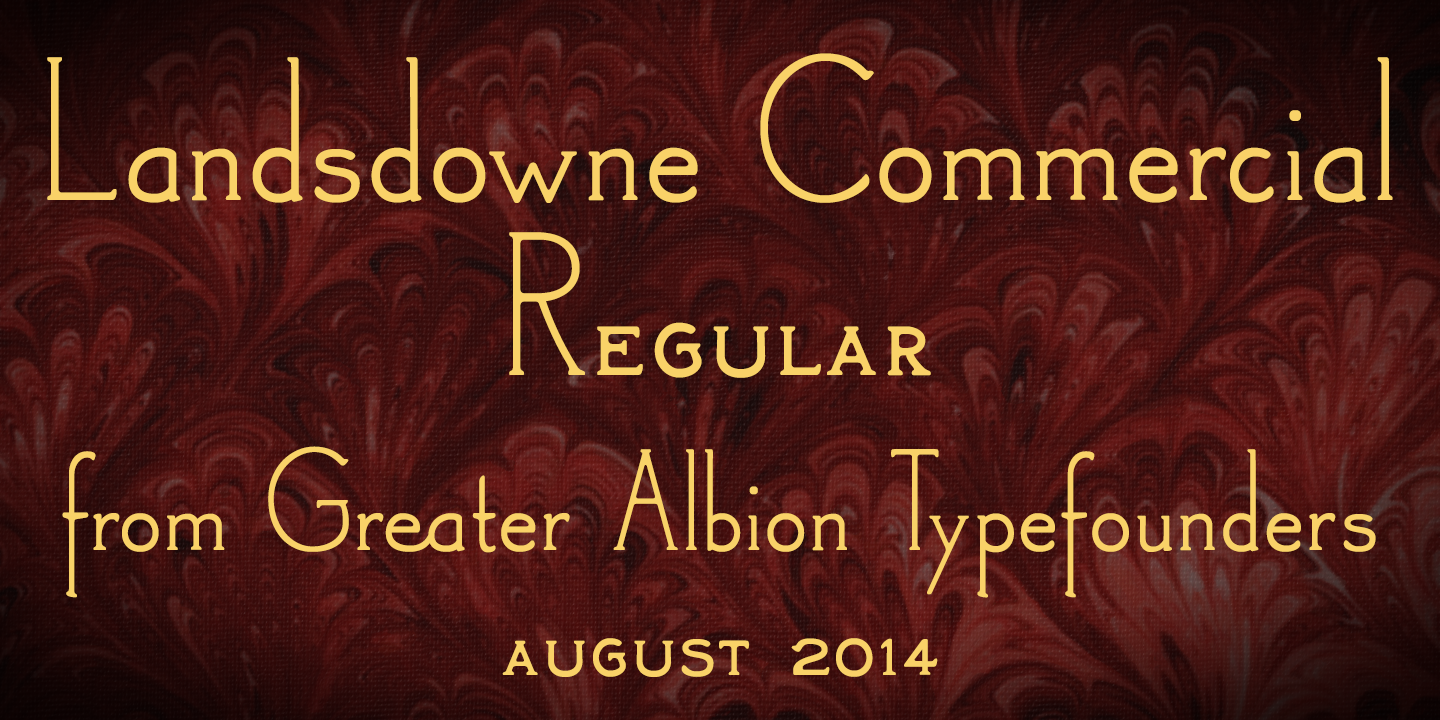
Landsdowne Commercial Font Free Download provides designers with sophisticated typography that combines business elegance with contemporary functionality for professional design applications. This commercial font requires purchase for business use, but you can download it for free for testing purposes to evaluate its distinctive corporate characteristics in your creative projects.
Landsdowne Commercial Font demonstrates remarkable versatility across numerous design applications including corporate identity systems, financial services branding, real estate marketing, legal firm communications, consulting presentations, business documentation, commercial signage, and professional service marketing. Its authoritative character makes it particularly effective for projects requiring established credibility while maintaining contemporary appeal, ensuring your designs convey business excellence and professional reliability across both digital platforms and executive print materials.
What makes Landsdowne Commercial Font truly exciting is its masterful balance of corporate sophistication and modern business sensibilities that creates compelling professional communications. The font features meticulously crafted letterforms that incorporate refined proportions and business-appropriate details that enhance corporate authority while maintaining excellent readability and commercial application. Its distinctive character construction combines traditional business aesthetics with contemporary functionality, creating text that feels both established and progressively professional. The font's optimized metrics and structured character relationships ensure superior performance across various corporate applications while preserving the characteristic authority that defines its commercial personality.
Landsdowne Commercial Font offers a comprehensive type family designed to support demanding business and corporate design requirements. The family typically includes thin, light, regular, medium, bold, and black weights, complemented by matching italic styles that provide complete typographic flexibility for sophisticated corporate hierarchies. Advanced versions often feature extended character sets with business symbols, commercial ornaments, and specialized glyphs essential for professional communications and corporate applications.
The Landsdowne Commercial Font Free Download represents outstanding value for designers working on corporate and business-focused projects across multiple industries. Whether developing financial services branding, creating real estate communications, designing professional service materials, or producing corporate documentation content, this font delivers consistent professionalism and memorable business appeal. Its commercial characteristics make it particularly effective for industries including finance, real estate, consulting, and professional services sectors seeking to communicate established expertise and corporate reliability.
For maximum effectiveness, Landsdowne Commercial Font combines excellently with clean, professional design elements and corporate color schemes that reinforce its business message. Its authoritative presence excels in headline applications while maintaining exceptional performance in business documentation contexts. The font's corporate sophistication and commercial appeal make it an essential tool for creating professional communications that resonate with business audiences expecting competence and established credibility.